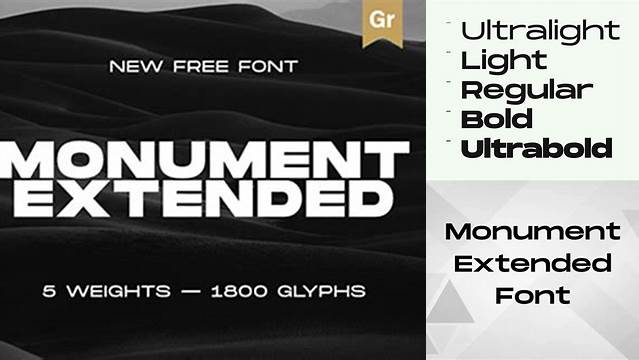
What Makes PP Monument Extended-Regular Font So Special?
Okay, so let's talk about why the PP Monument Extended-Regular font is such a catch. This font isn't just any old typeface; it's got a unique character that can seriously elevate your designs. It's got a modern yet classic vibe, making it super versatile for various projects. Think about it: you could use it for your website, your personal blog, or even your professional presentations. The font's clean lines and readability are perfect for both headlines and body text. The “Extended” part of the name is a big deal here, folks! It means the characters are wider than usual, which gives them a bold and attention-grabbing look. This is what makes it so good for headings, logos, and any design element where you want to make a statement. Its legibility makes it a fantastic choice for a wide range of uses. It’s not just about aesthetics; it's about functionality and user experience. Having a font that’s easy on the eyes is crucial for keeping your audience engaged and interested. The regular weight of the font strikes the perfect balance between being bold enough to stand out and subtle enough to read comfortably. The design lends itself well to both digital and print media, which is a huge advantage. Many designers and creatives love the font because it's easy to work with. It’s not overly complicated or fussy, allowing you to focus on your design’s message instead of wrestling with the font itself. The font has a certain charm to it, which is hard to find in many other typefaces. This charm can really help set your work apart. The font's versatility is really where it shines. You can use it for everything from branding to web design to print materials. The design is timeless, so it won't look dated anytime soon. It gives your projects a sense of sophistication and modern appeal, and this can be really important. Because of its versatility and modern appeal, it’s used in many different projects, which makes the font even more attractive to use. This font can really bring your creative visions to life. It’s like having a secret weapon in your design arsenal.
Why is PP Monument Extended-Regular Perfect for Your Projects?
So, why should you choose the PP Monument Extended-Regular font for your upcoming projects? Let me tell you, there are several reasons why it’s an excellent choice. First off, the font is incredibly versatile, which means it can adapt to a wide variety of design styles and applications. Whether you’re working on a sleek, modern website or a more traditional print project, this font has got you covered. Then there's its legibility, this is a massive factor. In the world of design, readability is key. What's the point of having a beautiful design if no one can actually read what it says? The PP Monument Extended-Regular font is designed to be easy on the eyes, making it a great choice for both headlines and body text. This is really important for a good user experience. Next, we've got its unique style. In a sea of generic fonts, this font stands out. It has a distinct personality that can bring a certain edge to your work. Whether you want to convey elegance, boldness, or modernity, this font can help you do just that. Its distinctive style makes it a favorite among designers who want to create memorable visual experiences. Remember, fonts have personalities! Furthermore, this font is well-suited for both digital and print media. It's optimized to look great on screens of all sizes and also holds up beautifully in print. The clarity of the letters makes it ideal for any medium, whether it’s a website, a poster, or a business card. This means you don't have to worry about the font losing its charm no matter how it’s used. Also, let's not forget the emotional impact of the font. The right font can evoke specific emotions and enhance the message you want to send. This font has a modern vibe, which can help you connect with your audience in a really powerful way. Its clean lines and balanced proportions create a visual harmony that is instantly appealing. Its design will help you to get your message across. Its adaptability makes it a winner.